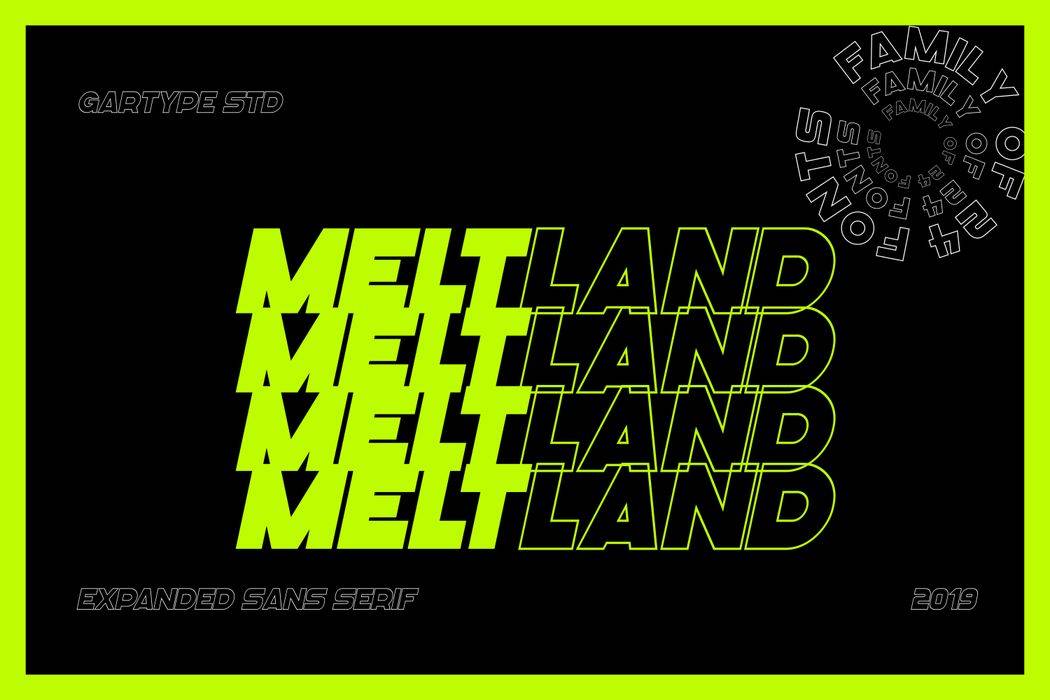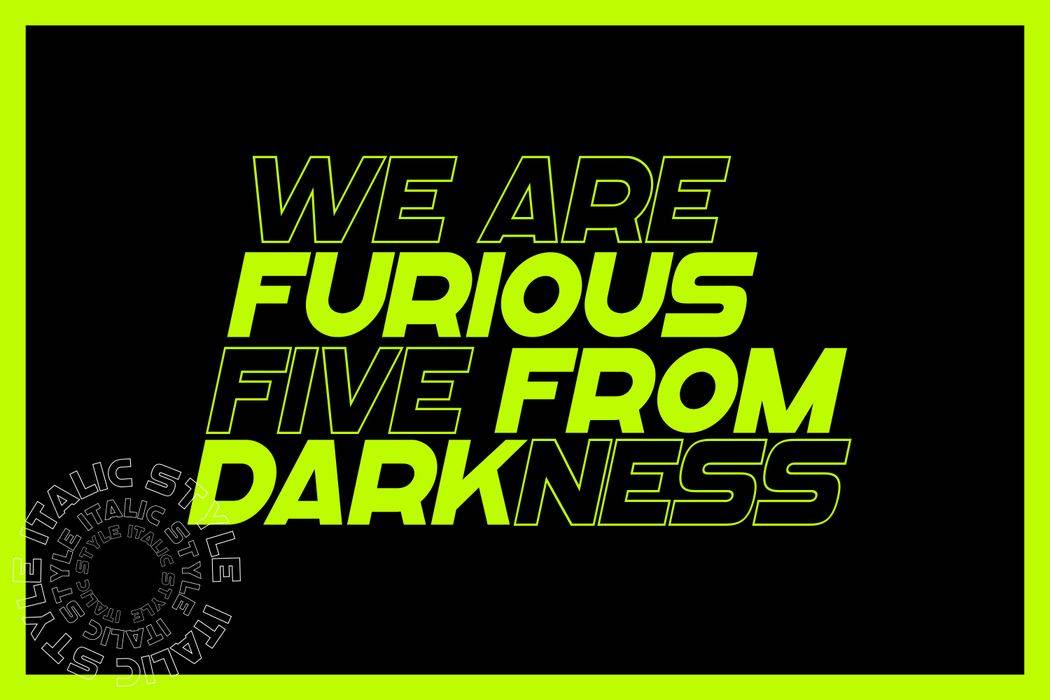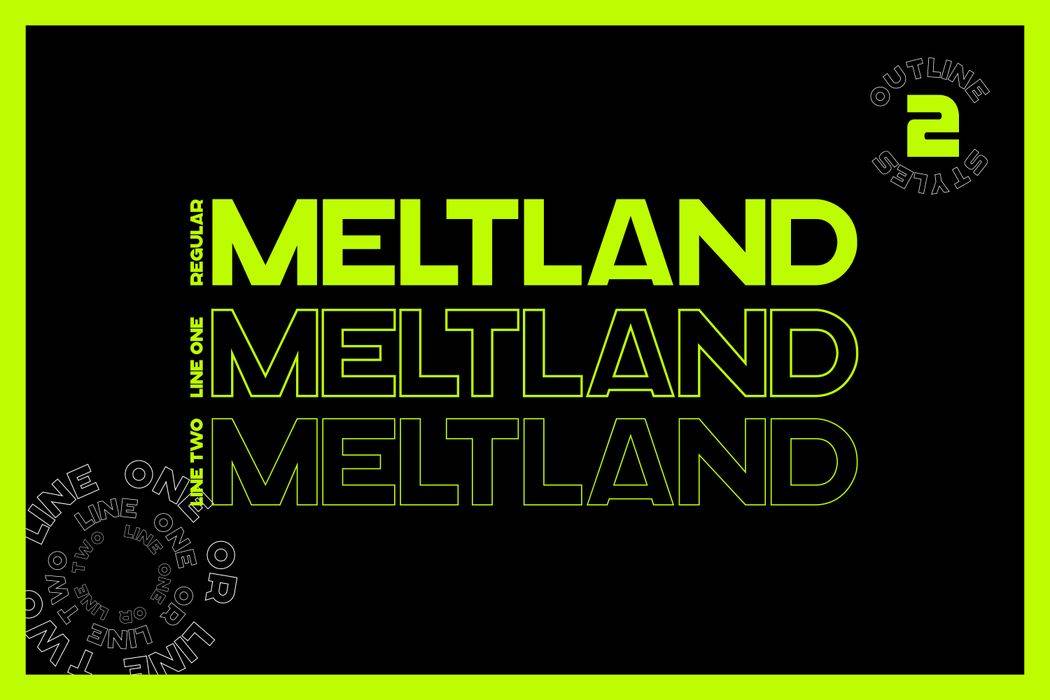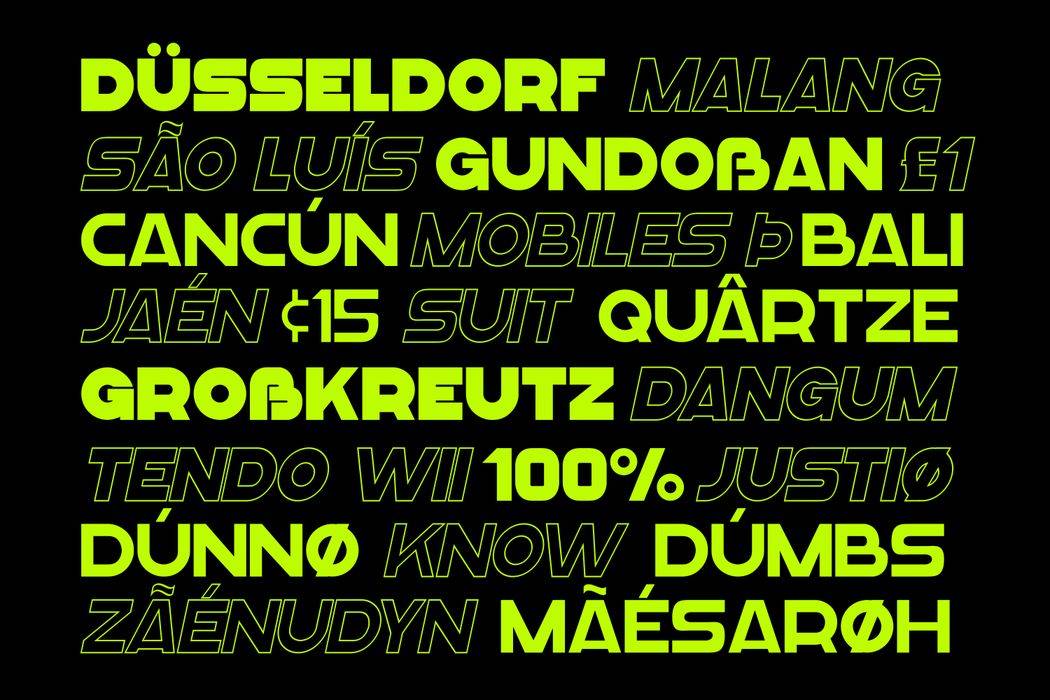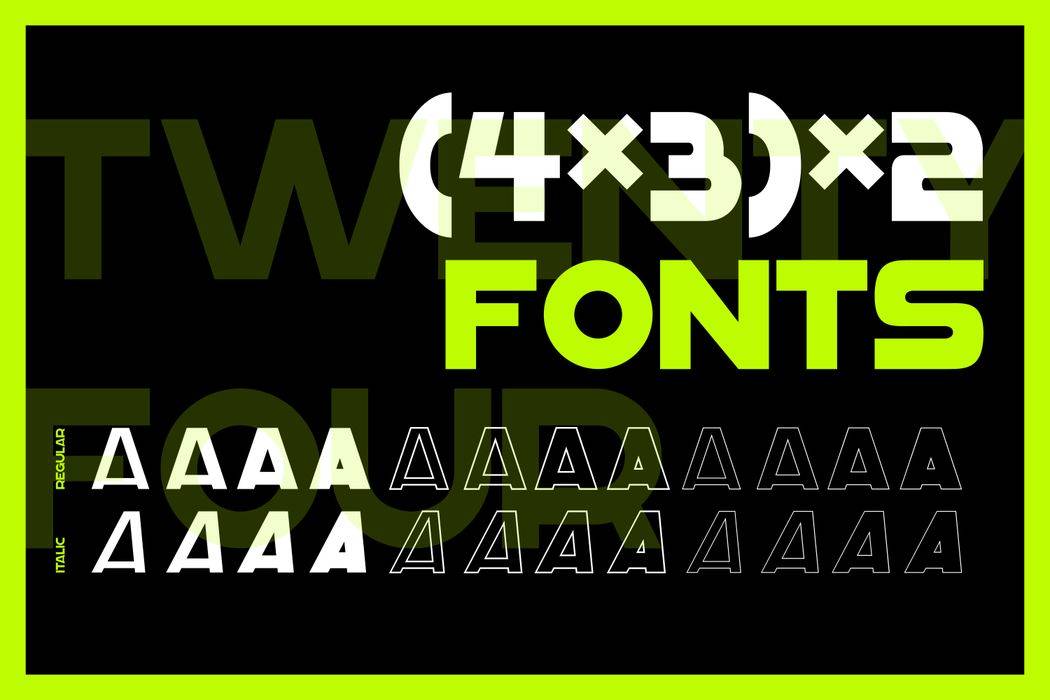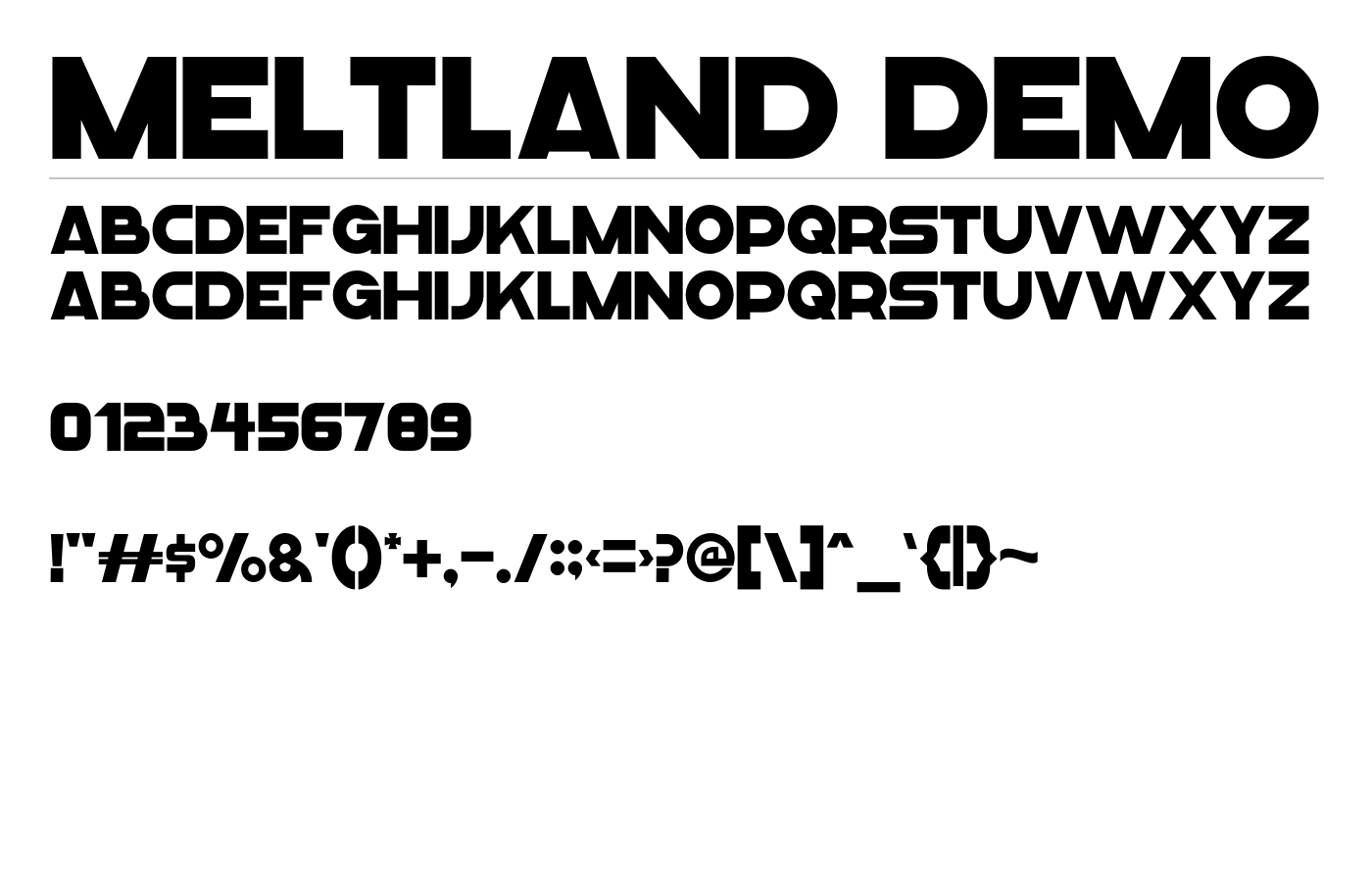
Meltland is a bold, geometric sans serif font with a strong, modern presence and clean, solid letterforms that convey confidence and impact. Its wide, blocky shapes and consistent stroke weight make it ideal for headlines, logos, and branding projects that require a powerful, contemporary look. This font works well in designs that aim for clarity and boldness, such as posters, editorial titles, and dynamic web displays.
Meltland Font
About Meltland Font
| Font family | Meltland Font |
| Designer | Gumilang Anggara Ruslan |